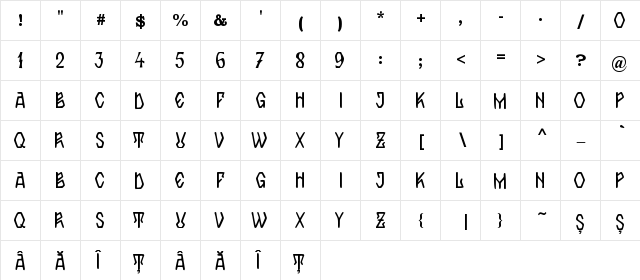
Zamolxis IV Regular
Design Context for Zamolxis IV Typeface
Zamolxis IV is a composed and adaptable typeface that performs quietly and consistently across a wide range of design contexts.